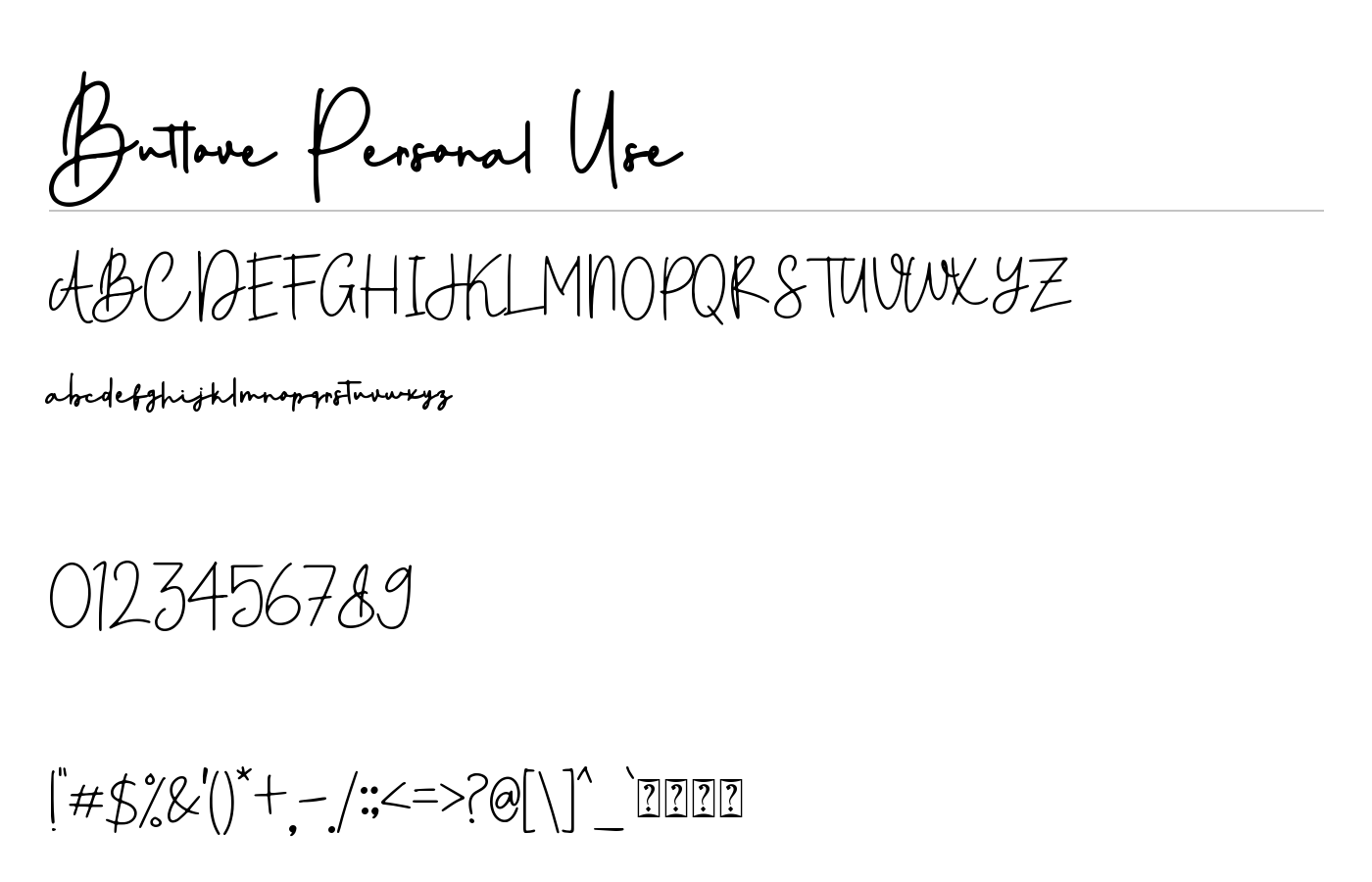
Butlove Personal Use Font is a delicate, handwritten script with tall, narrow letterforms and thin strokes, giving it an elegant and airy appearance. Its playful yet refined style makes it perfect for personal branding, invitations, and social media where a touch of whimsy and charm is desired. This font works best in decorative contexts that benefit from a light, creative, and approachable feel.
Butlove Personal Use Font